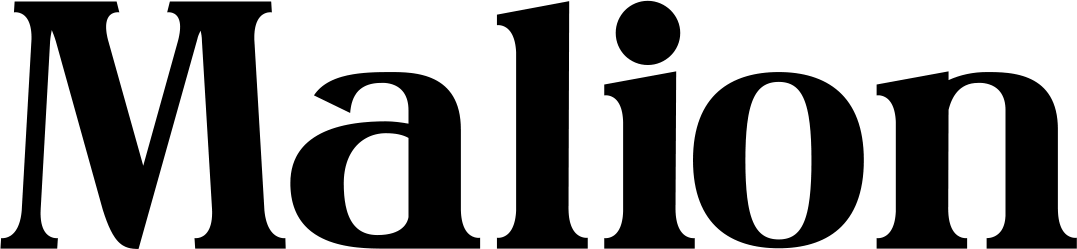
Malion Font
Malion is the perfect font for a formal headline and important news. This serif font has all bold letters with a very big design that catches the attention of the reader. You can use it to write headlines and give out a powerful and serious sense to your reader. This font does not have a numeric set.
Malion font is a modern and clean display (Serif) font. Create from our talented font designer. The design of typeface will make your design more beautiful and inspiring. This font will suitable for any project, like branding, print template, logo and etc.